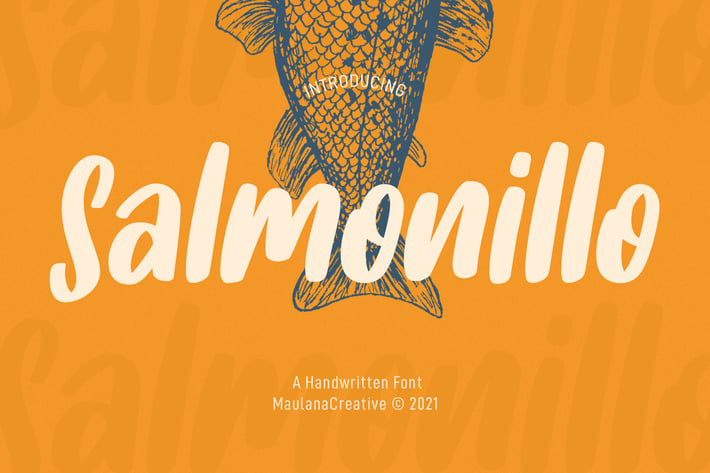
Salmonillo Handwritten Font
Salmonillo is a Cartoon-is natural handwritten feel font. With marker stroke, slanted and fun character with a bit of ligatures. To give you an extra creative work. Salmonillo font support multilingual more than 100+ language. This font is good for logo design, Social media, Movie Titles, Books Titles, a short text even a long text letter and good for your secondary text font with sans or serif. Make a stunning work with Salmonillo font.